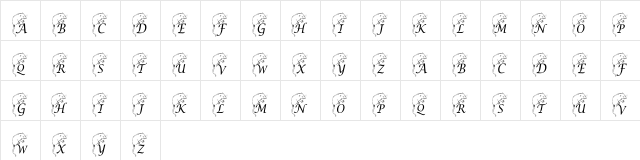
pf_opposum1 Regular
Design Context for pf_opposum1 Typeface
pf_opposum1 is a composed and adaptable typeface that performs quietly and consistently across a wide range of design contexts.